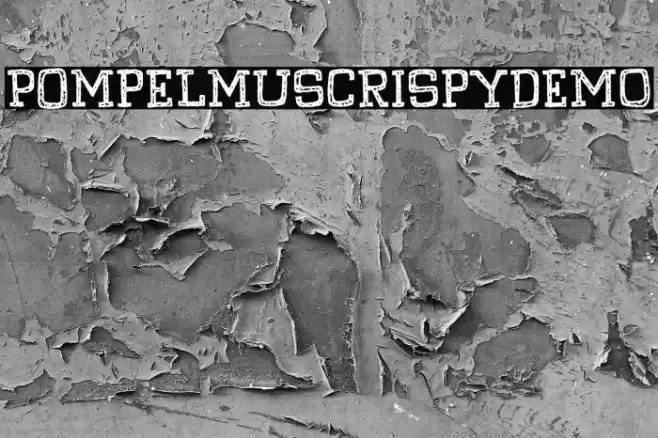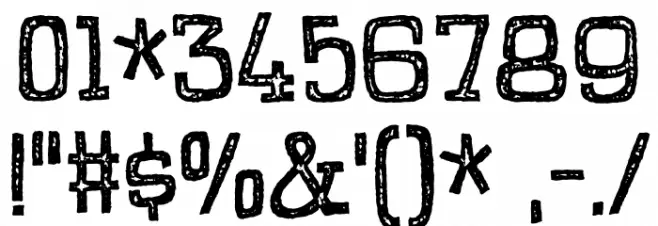
PompelmusCrispyDEMO Font
PompelmusCrispyDEMO Description
This font features a bold and textured design, reminiscent of a hand-stamped or distressed style. Each character is uniquely detailed with a rough, uneven texture that gives it a vintage and rugged appearance. The uppercase letters are uniform in height, while the numerals and special characters maintain the same distressed aesthetic. The font's boldness makes it stand out, while the textured details add a layer of visual interest, making it suitable for projects that require a rustic or handcrafted feel.
A bold, textured font with a vintage, distressed style from Uncategorized fonts.
- Proposed Projects: Ideal for posters, branding, packaging, and any design requiring a rustic or handcrafted look.
- Overall Style: Vintage